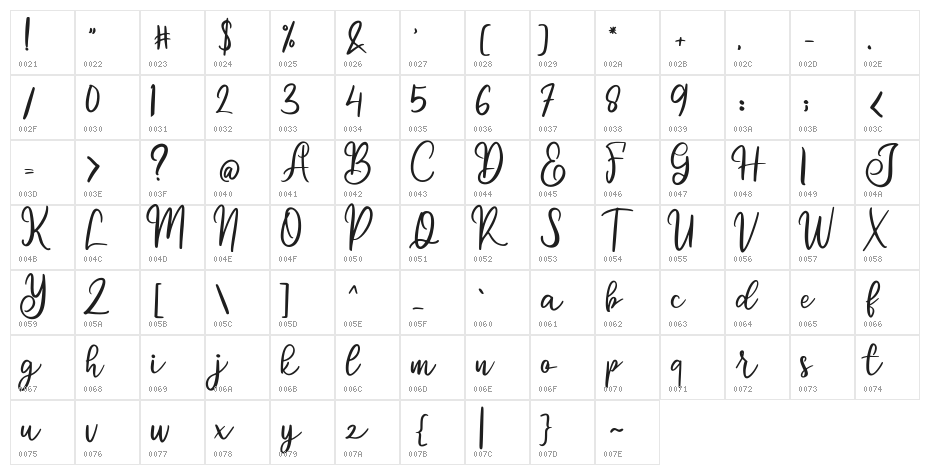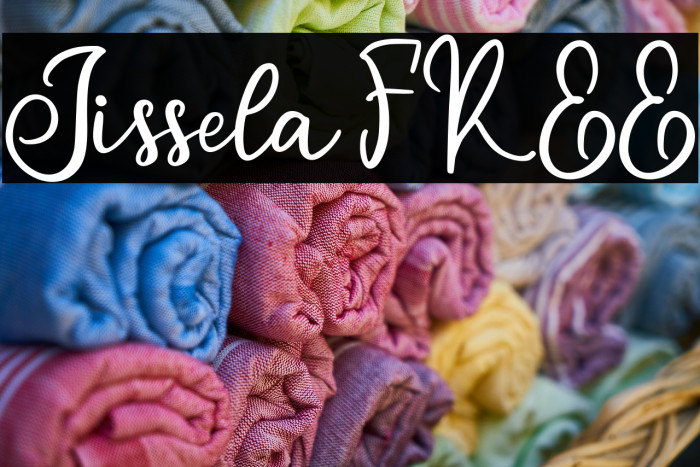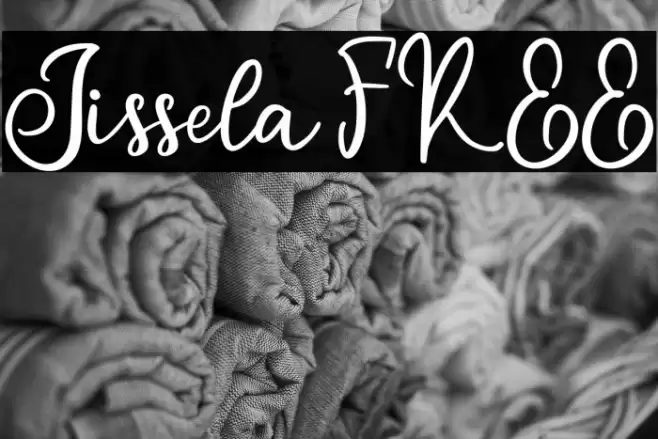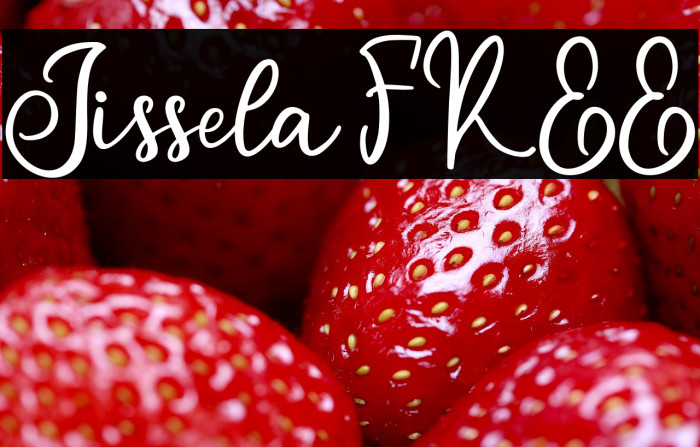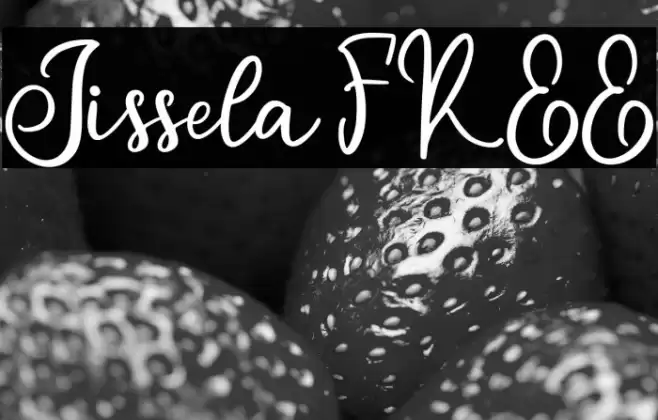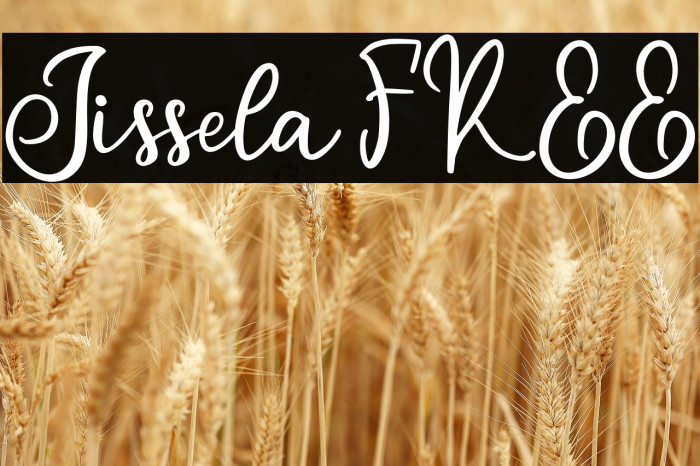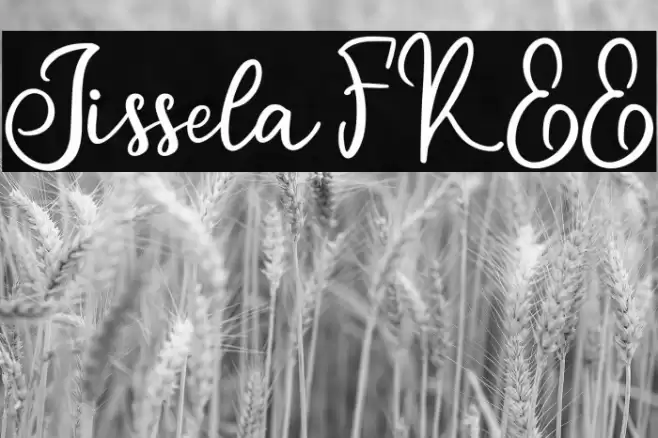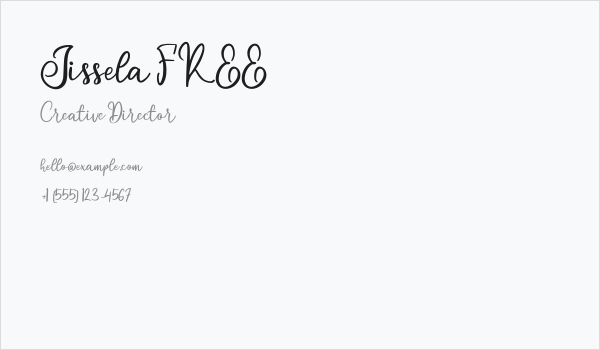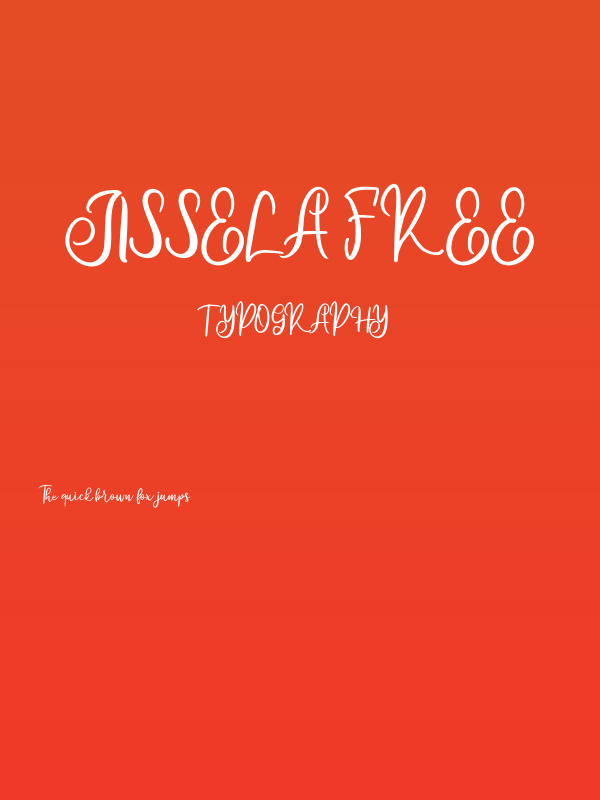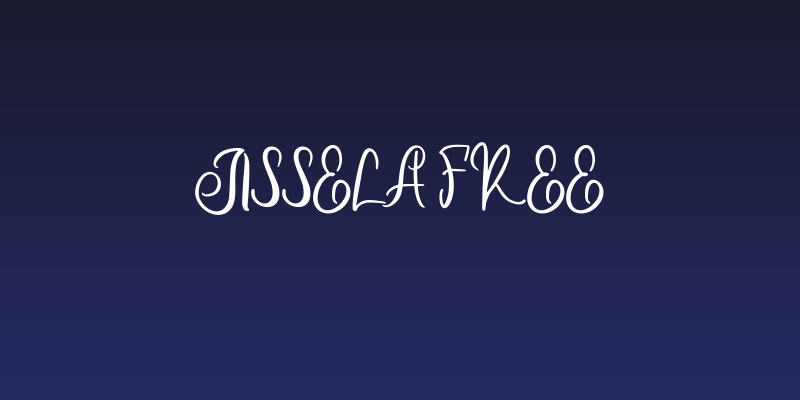
Jissela FREE Font
Jissela FREE Description
This font features a playful and elegant script style with a handwritten appearance. The uppercase letters are bold and flowing, with a consistent stroke width that adds to its readability. The lowercase letters maintain a smooth, cursive form, enhancing the font's overall fluidity. Numbers and special characters are designed to match the script's style, ensuring a cohesive look across all elements. The font's design is both modern and classic, making it versatile for various applications.
| Use Case | Logos, Invitations, Social Media |
| Proposed Projects | Ideal for wedding invitations, greeting cards, branding, and social media graphics. |